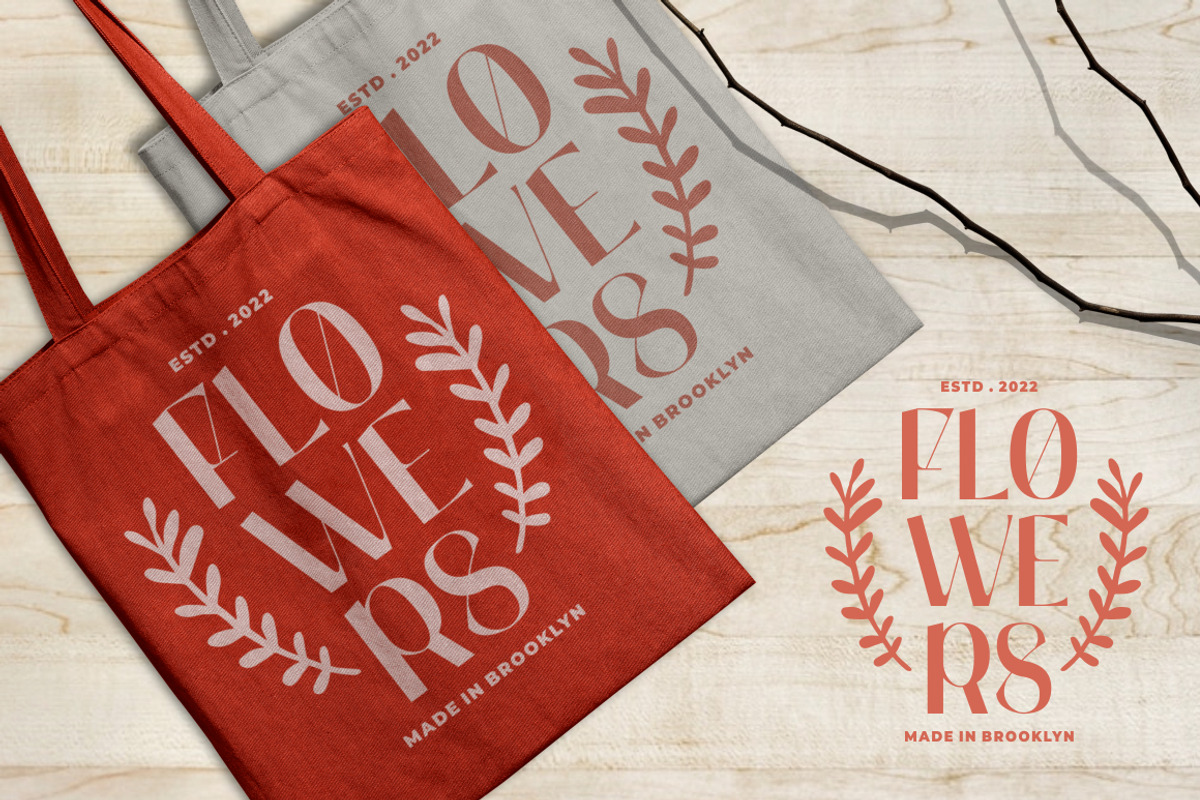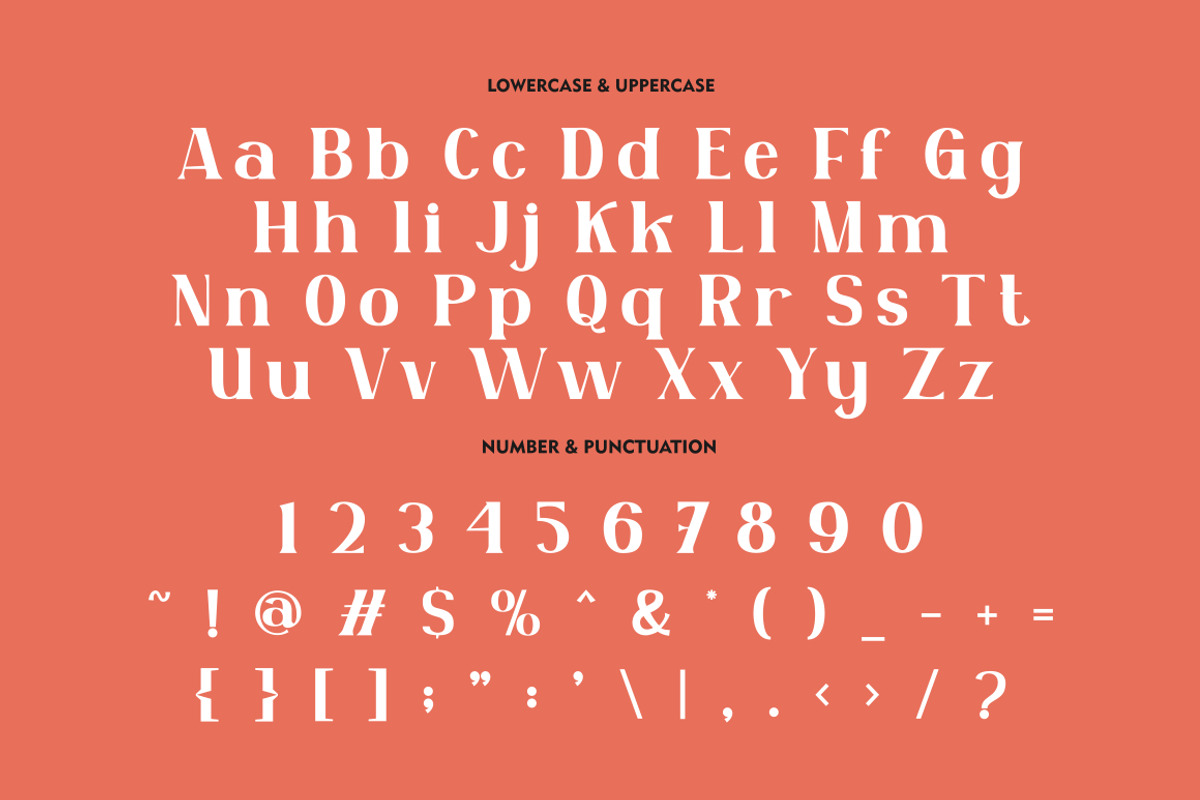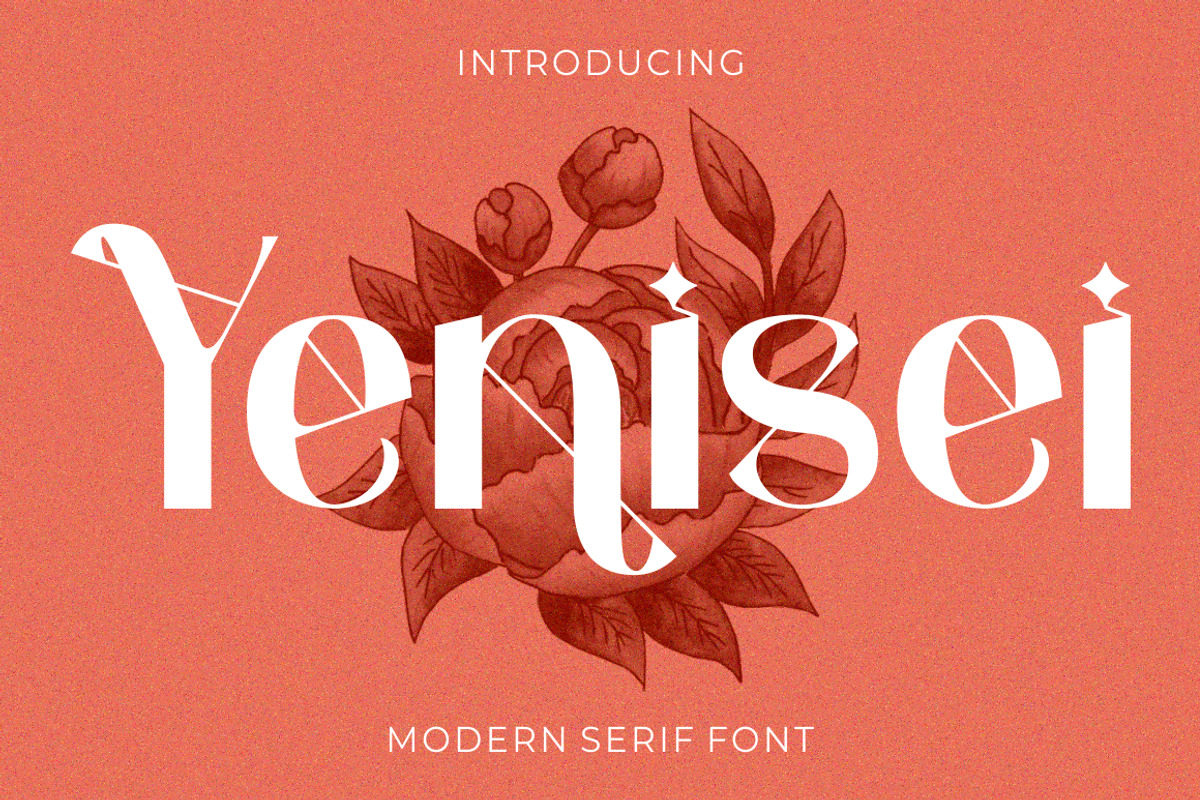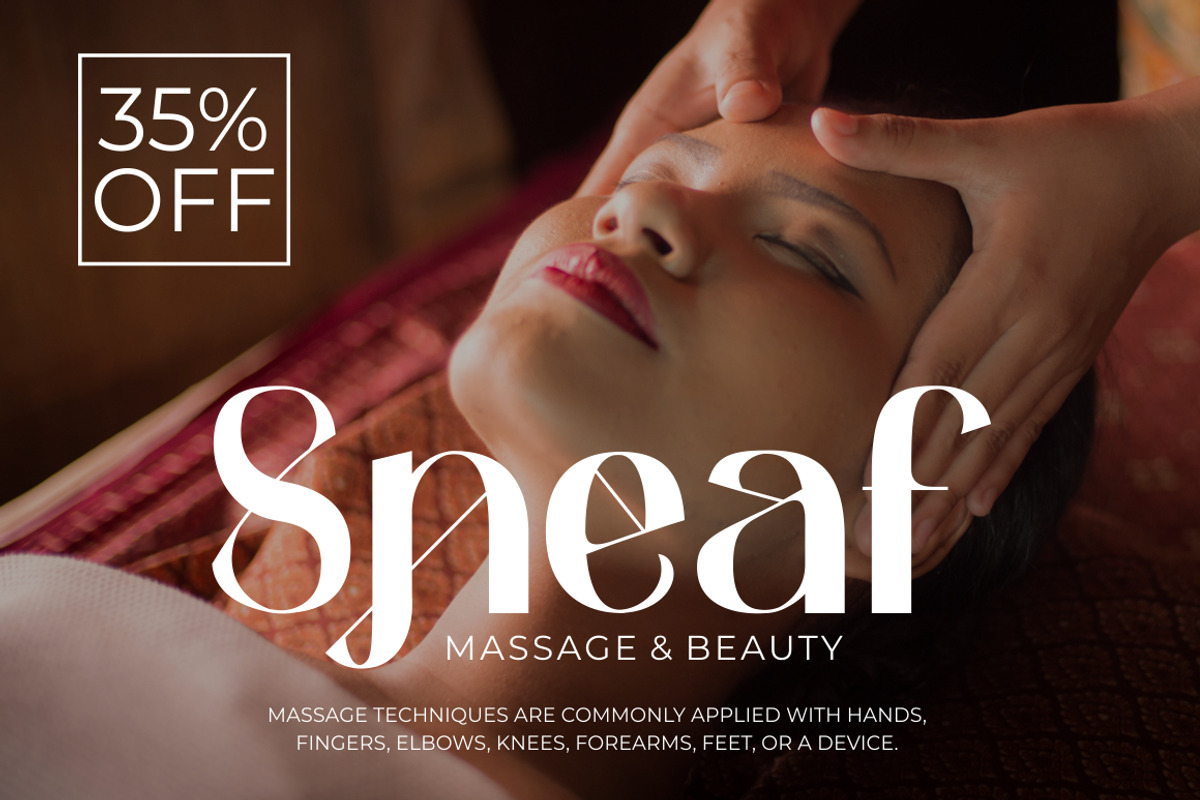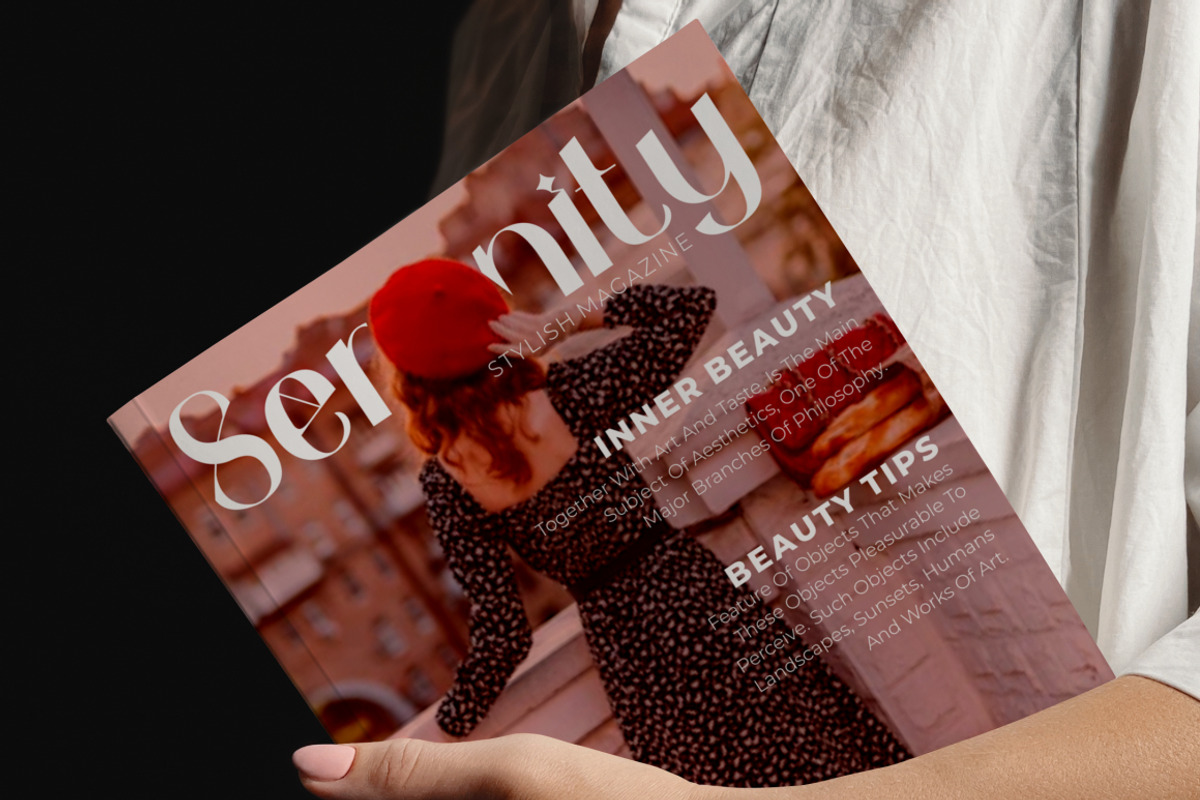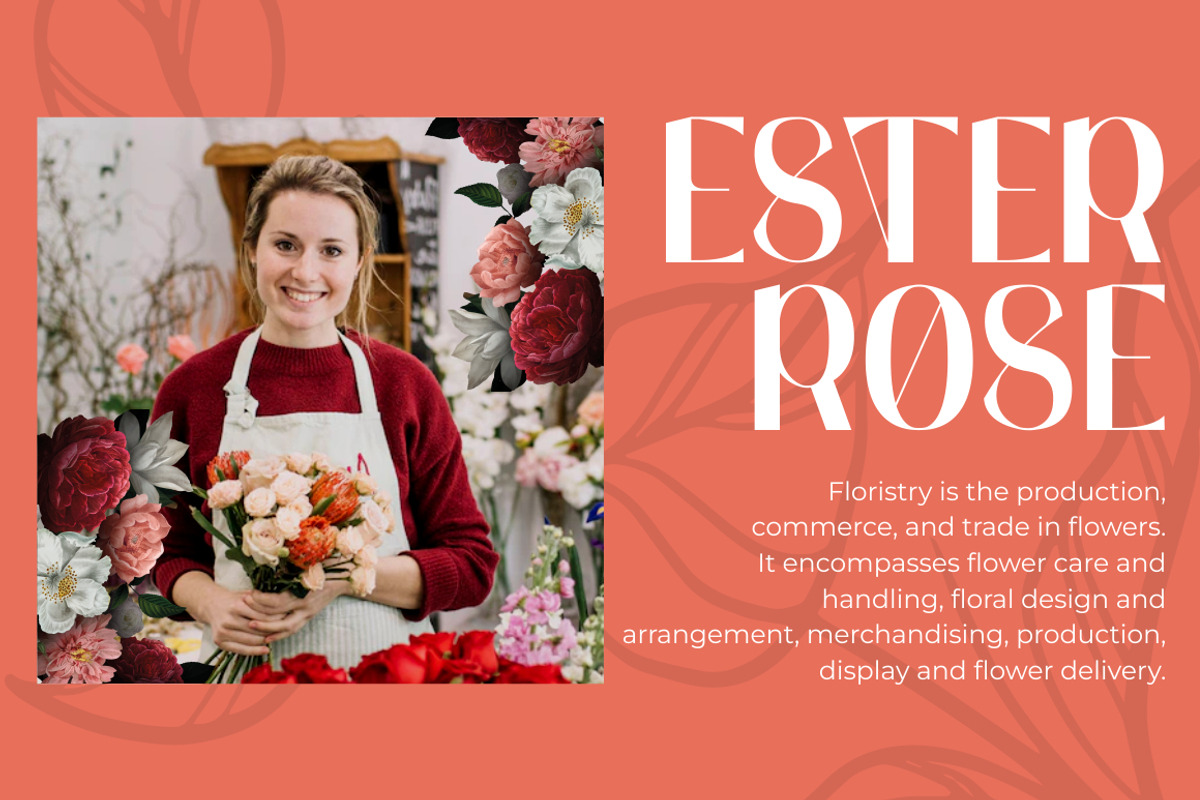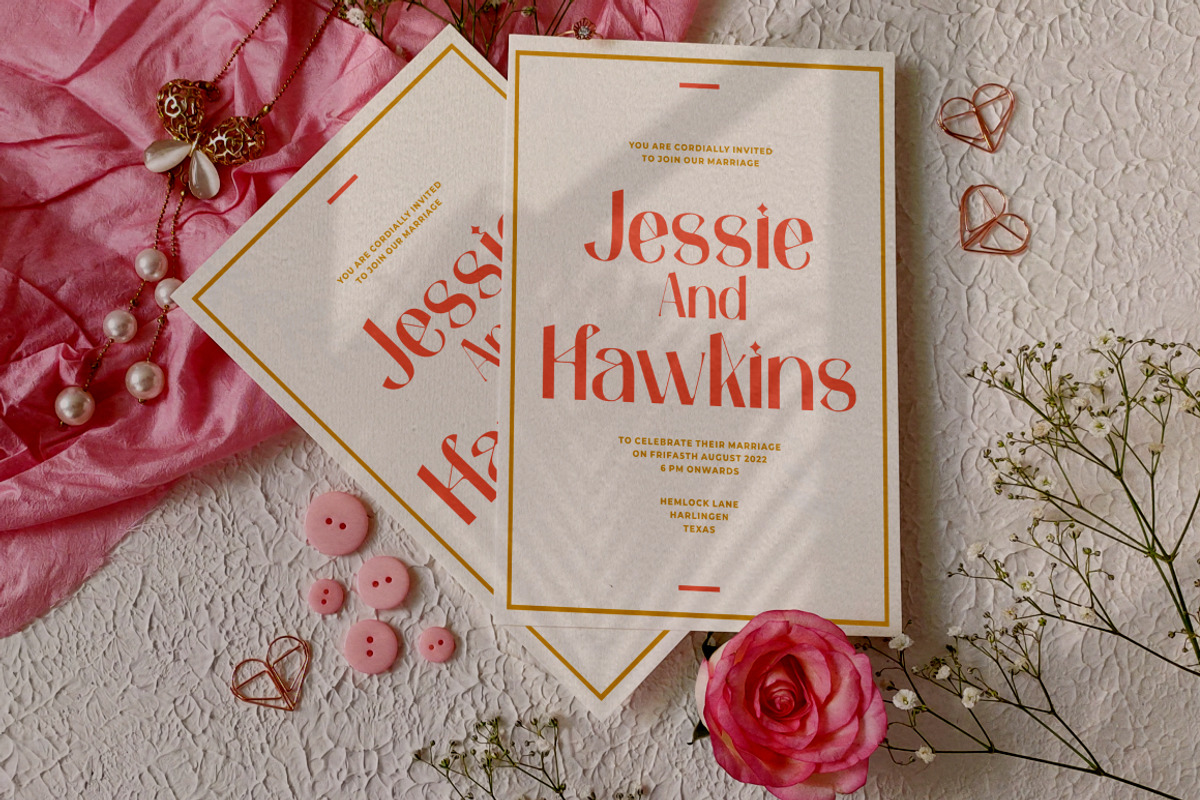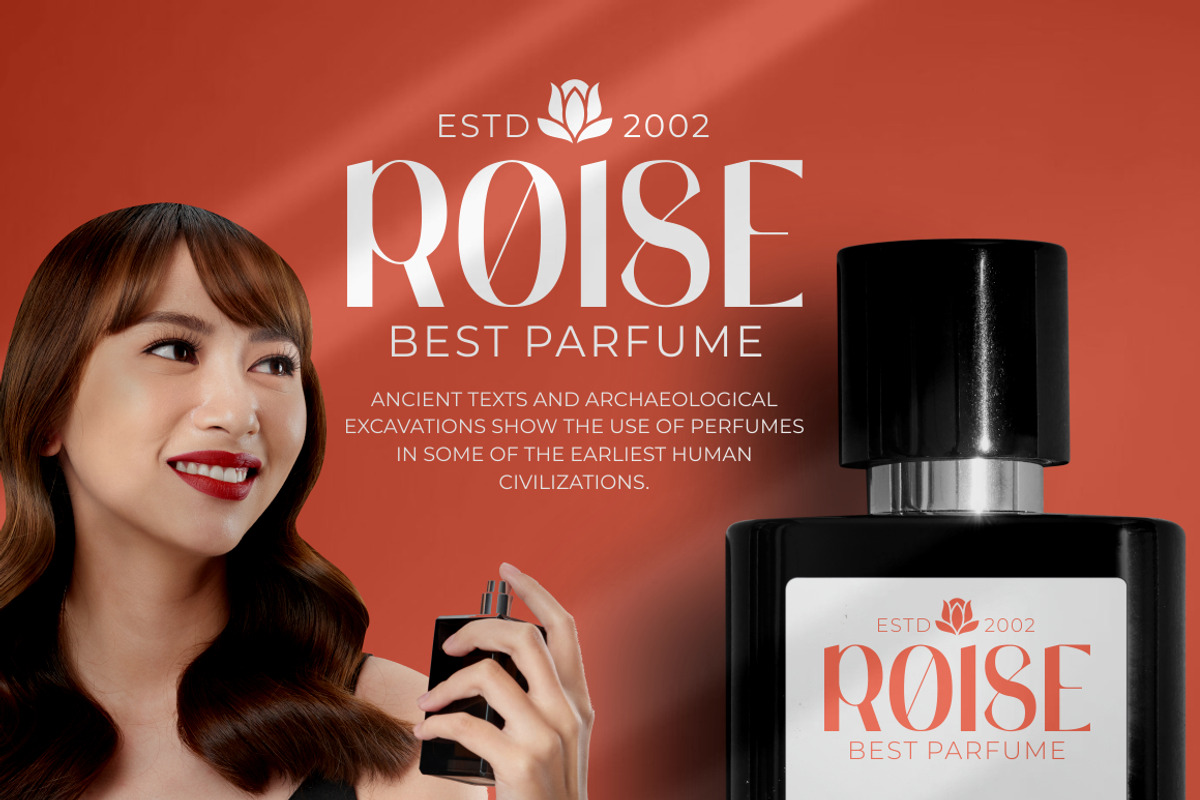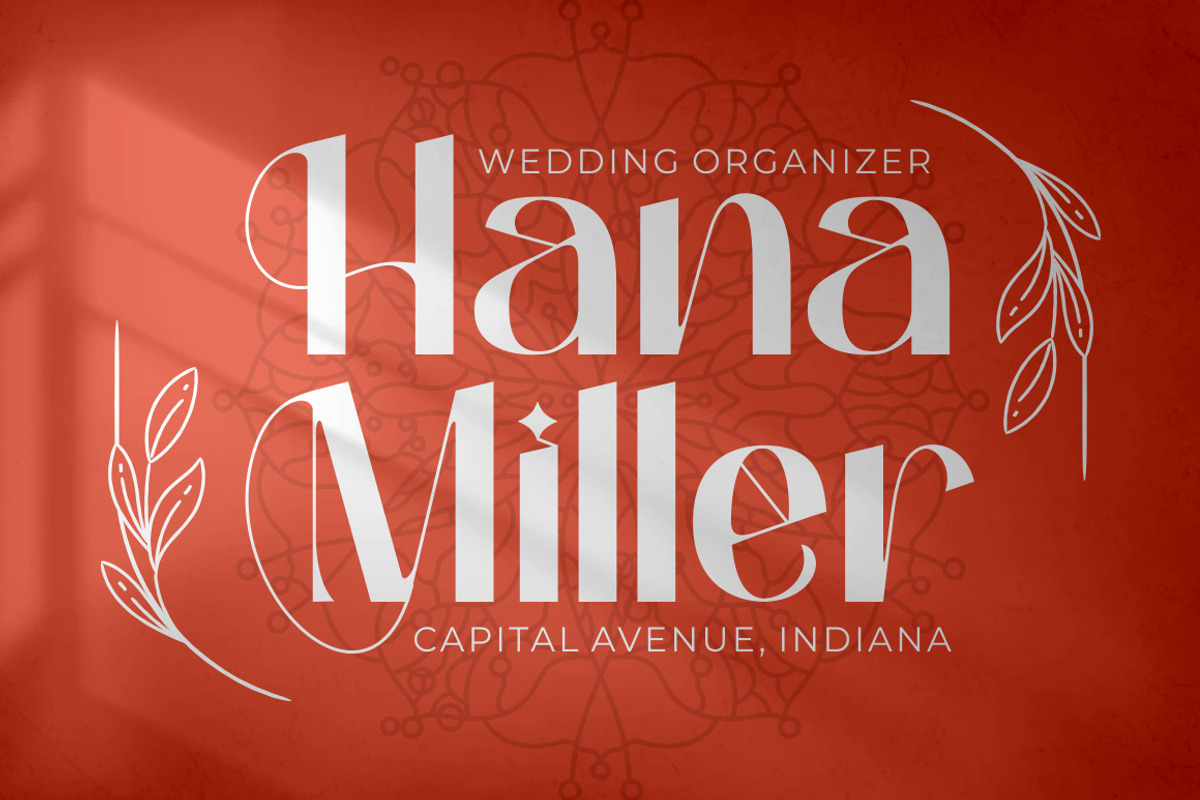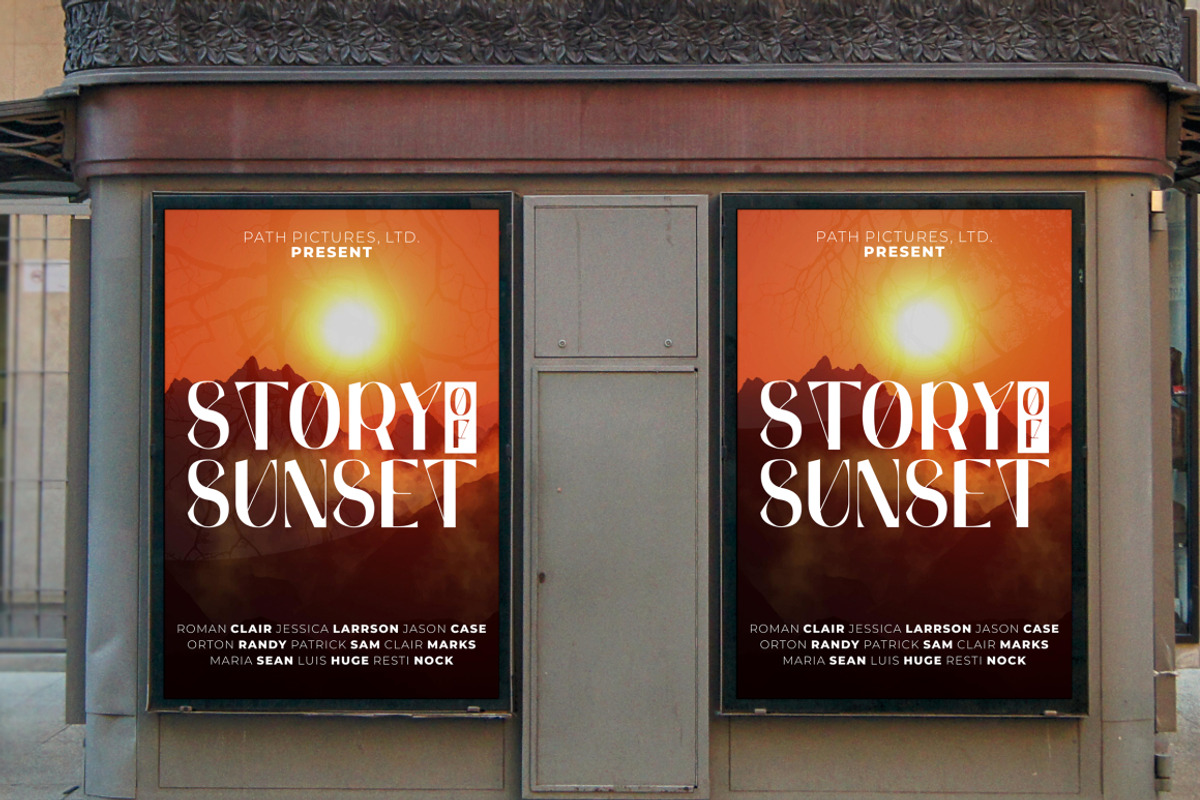
Yenisei - Modern Serif Font
Yenisei - Modern Serif Font. Inspired from unique typography and lettering in the elegant alphabet from luxury serif and we combine with modern typography style. Modern ligature you can make great lettering for beautiful artwork. Come with open type feature ( a lot of alternates and end swash), its help you to make great lettering. Yenisei best uses for Logotype, heading,cover, poster, logos, quotes, product packaging, header, merchandise, social media & greeting cards and many more. Yenisei font is also support multi language.
Comes with feature :
- Opentype (Alternates And Ligatures)
- Number, Punctuation And Symbols
- Multilanguage Support.